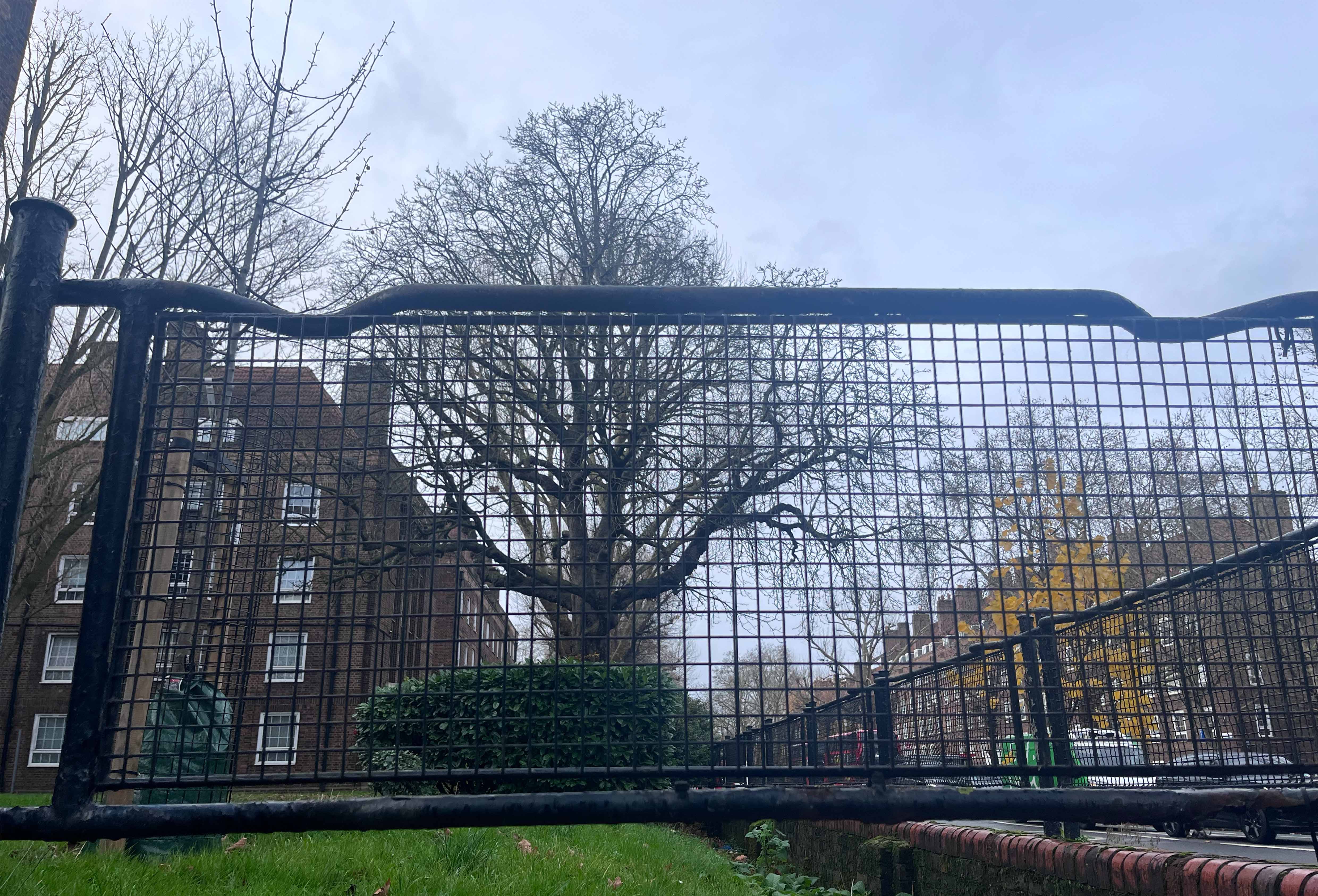
I chose to use the Chinese pattern "Ruyi Pattern" to simulate the crack. The "Ruyi pattern" originated in the Wei and Jin Dynasties of ancient China, symbolizing all good things and peace and smoothness. I chose this pattern because I hope that those who were injured in the war will all be safe and smooth in the future. Although it has caused indelible harm, it is hoped that the peace and tranquility after the war can bring some healing to the wounds.